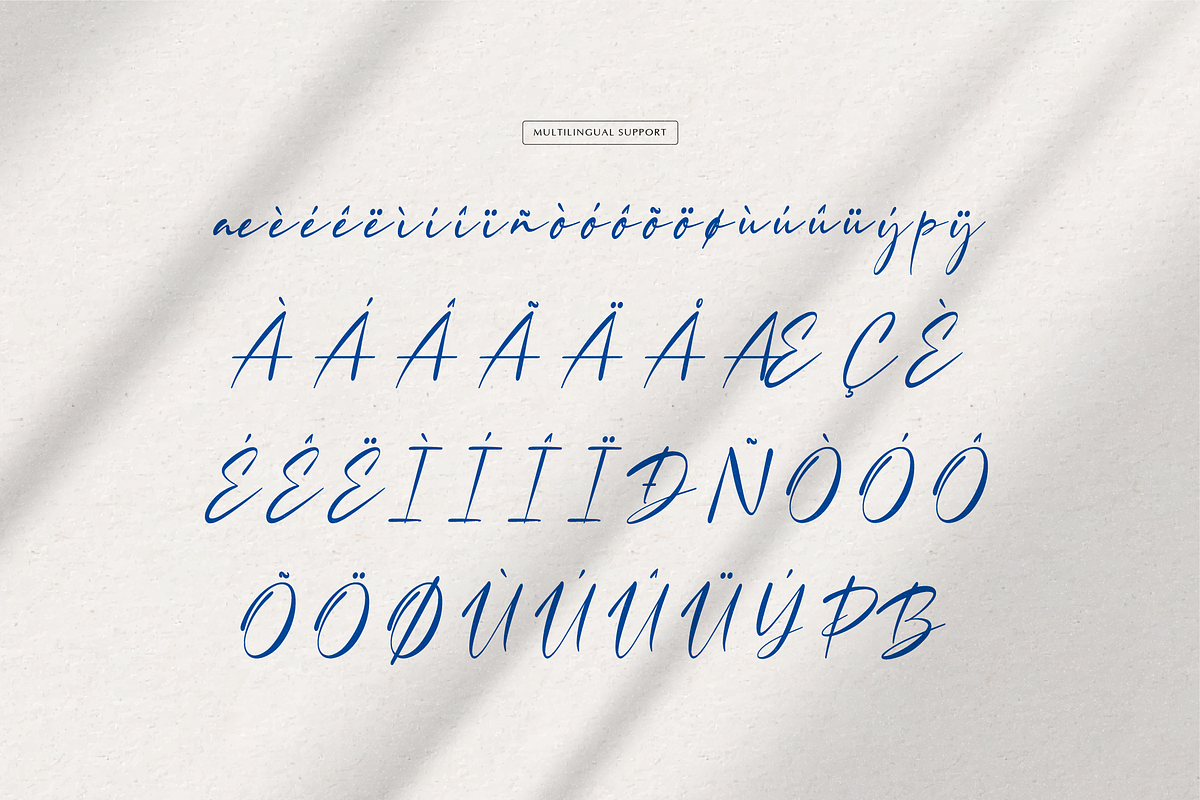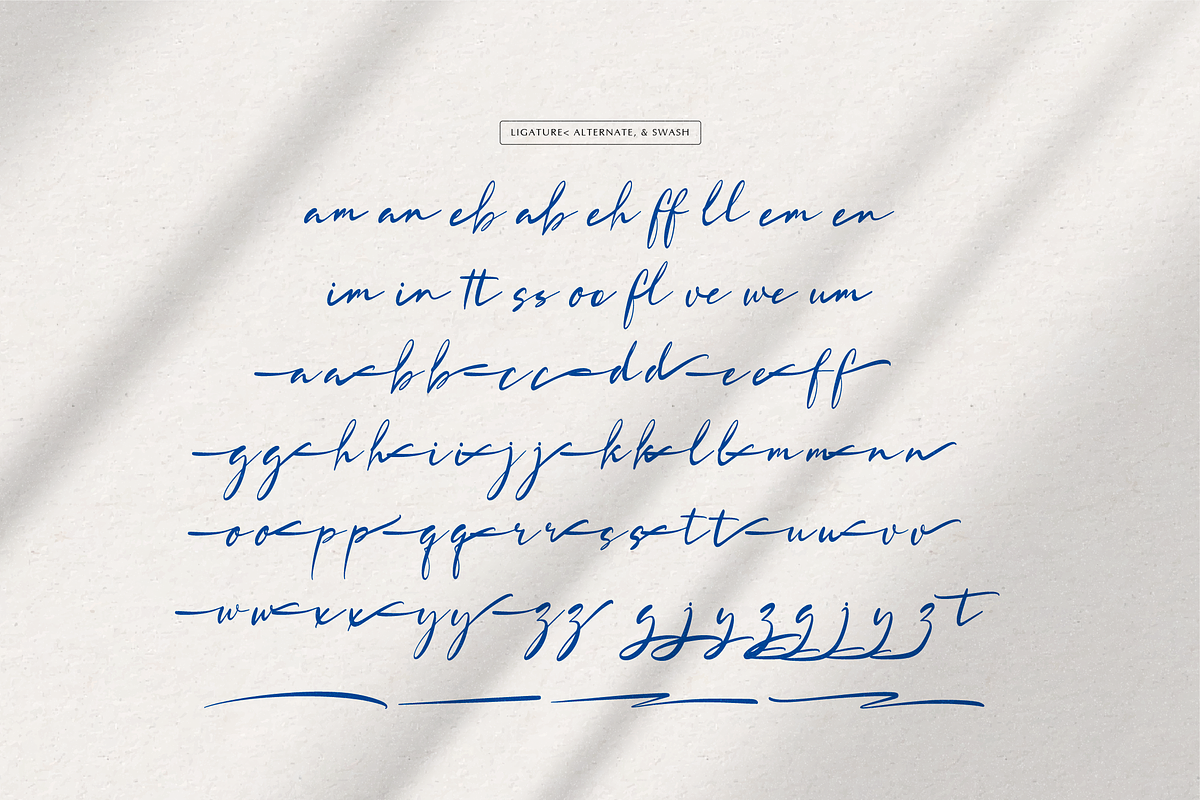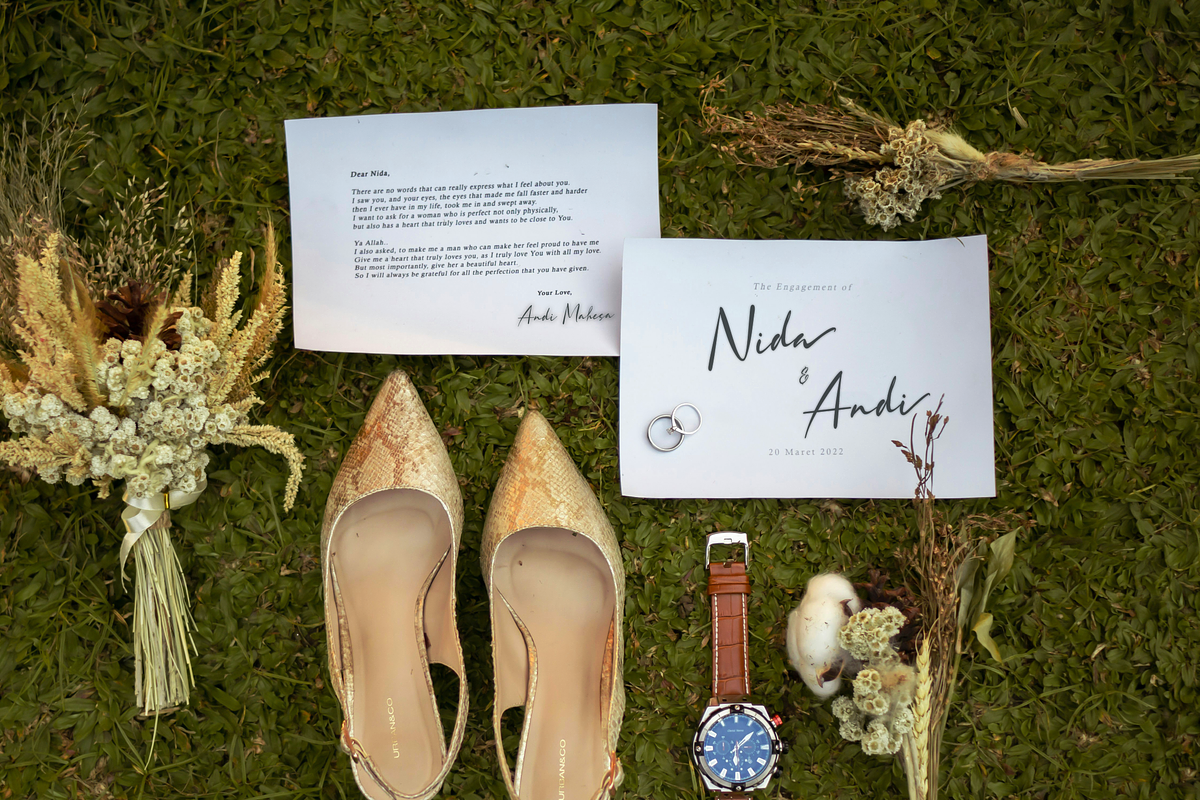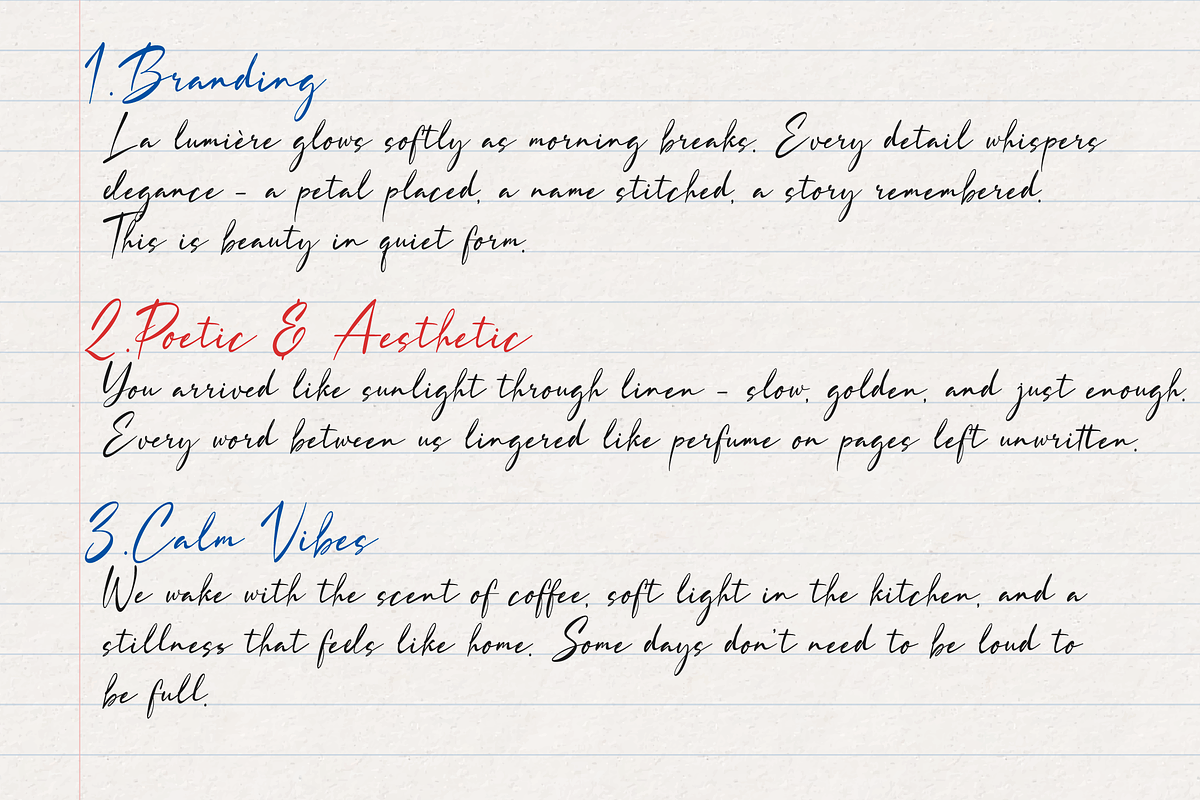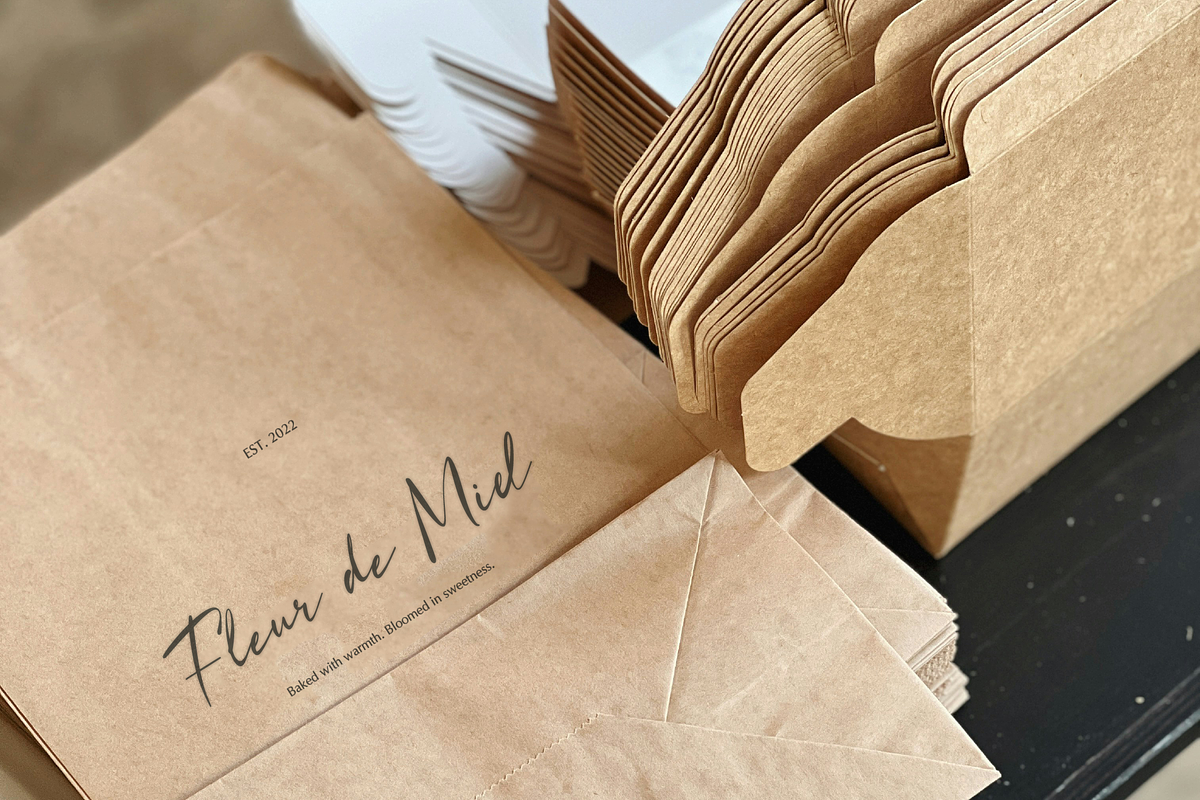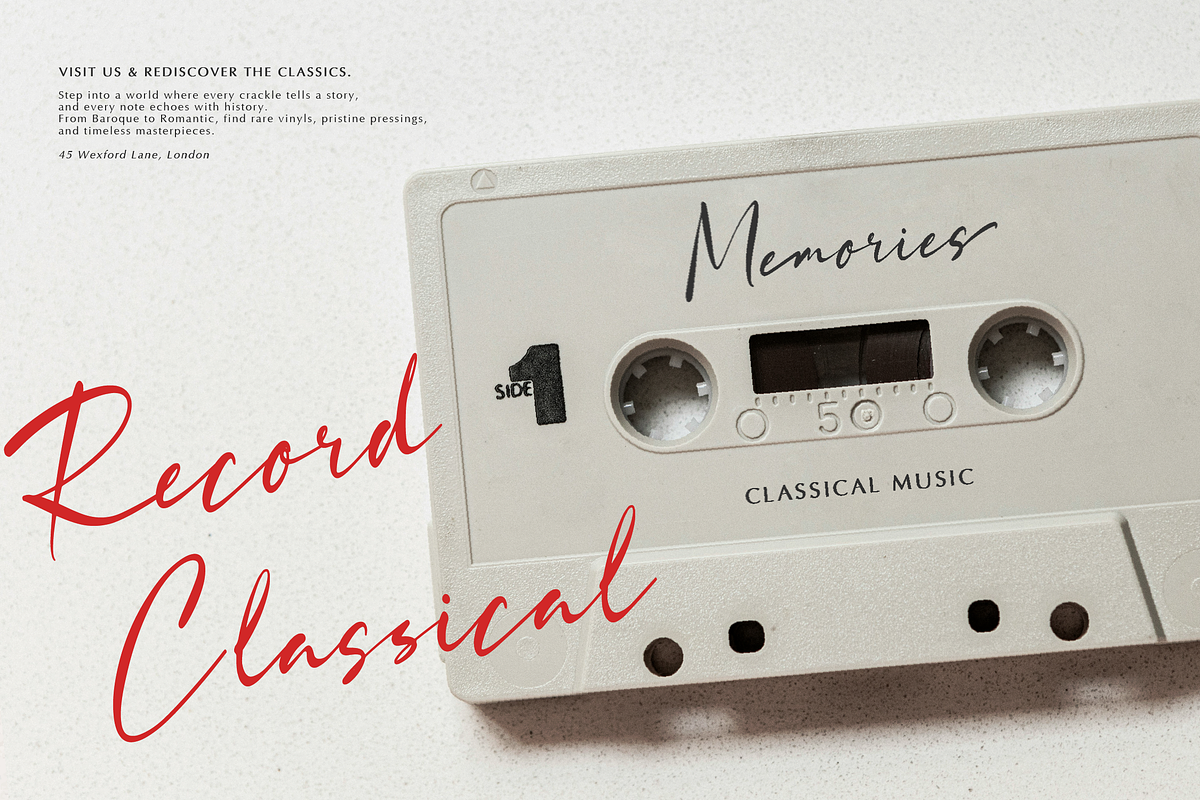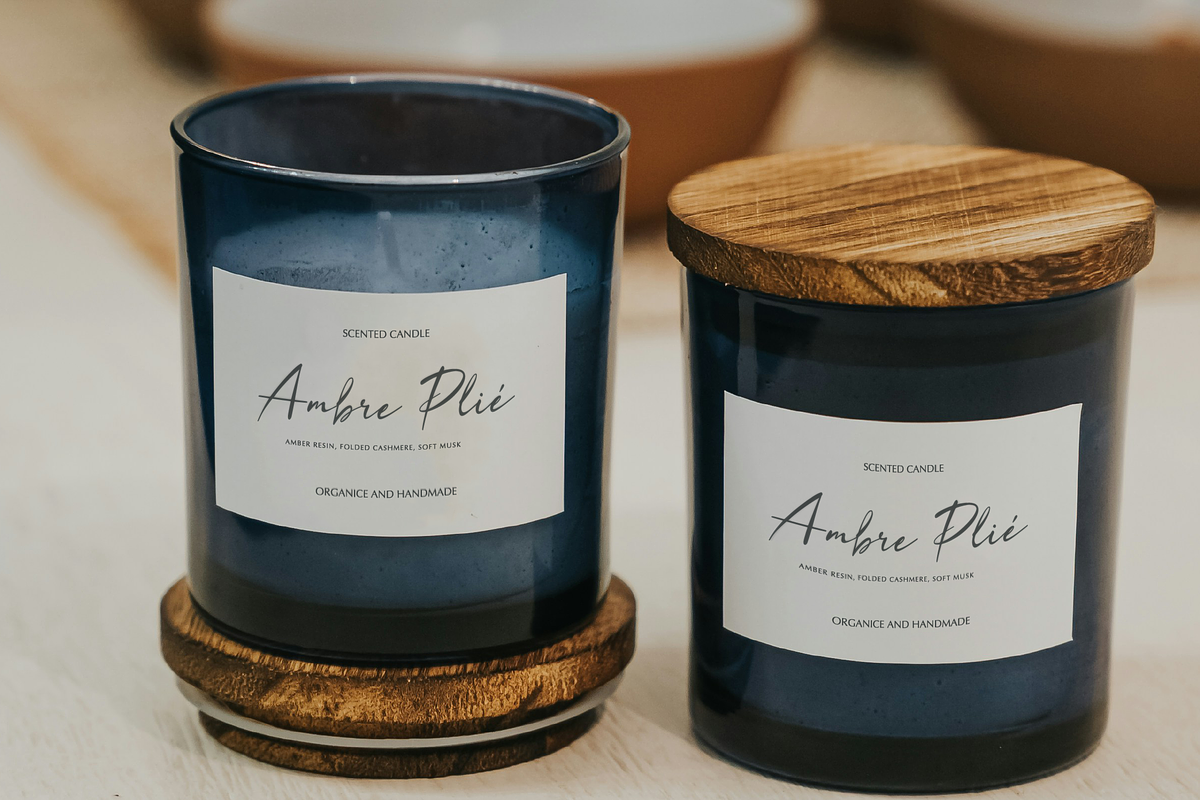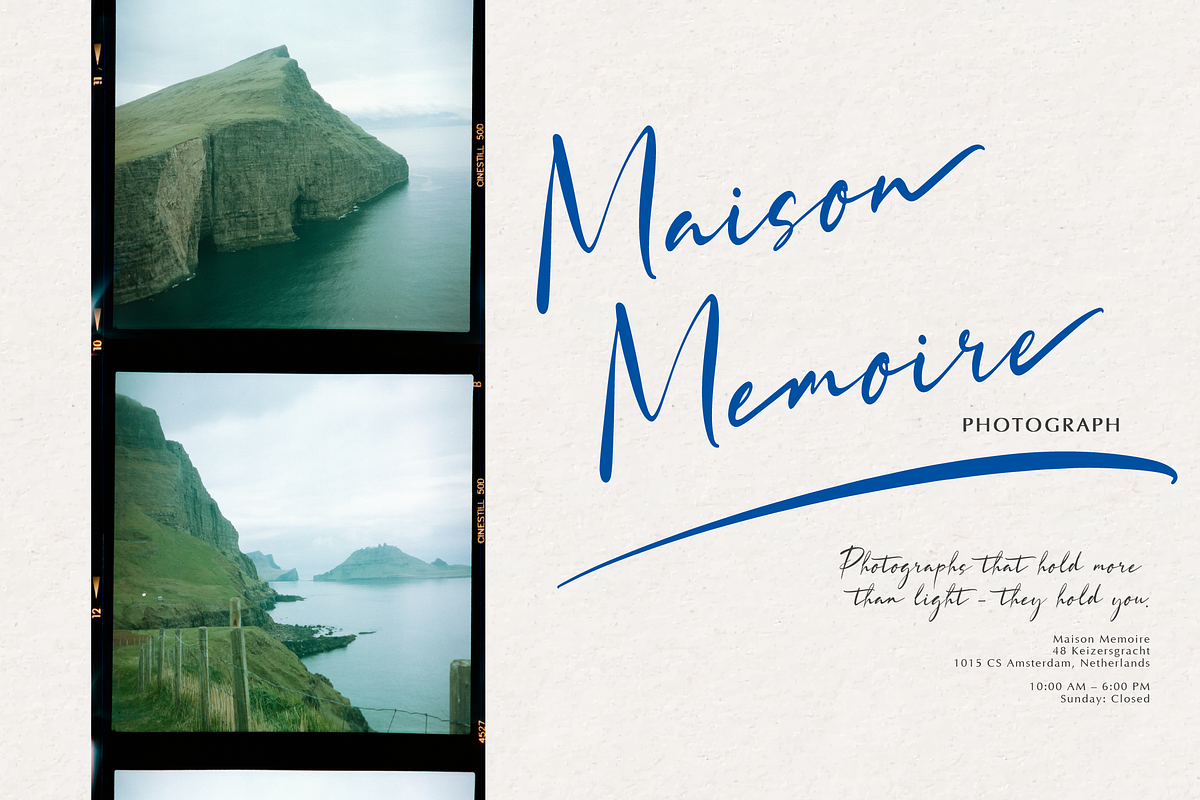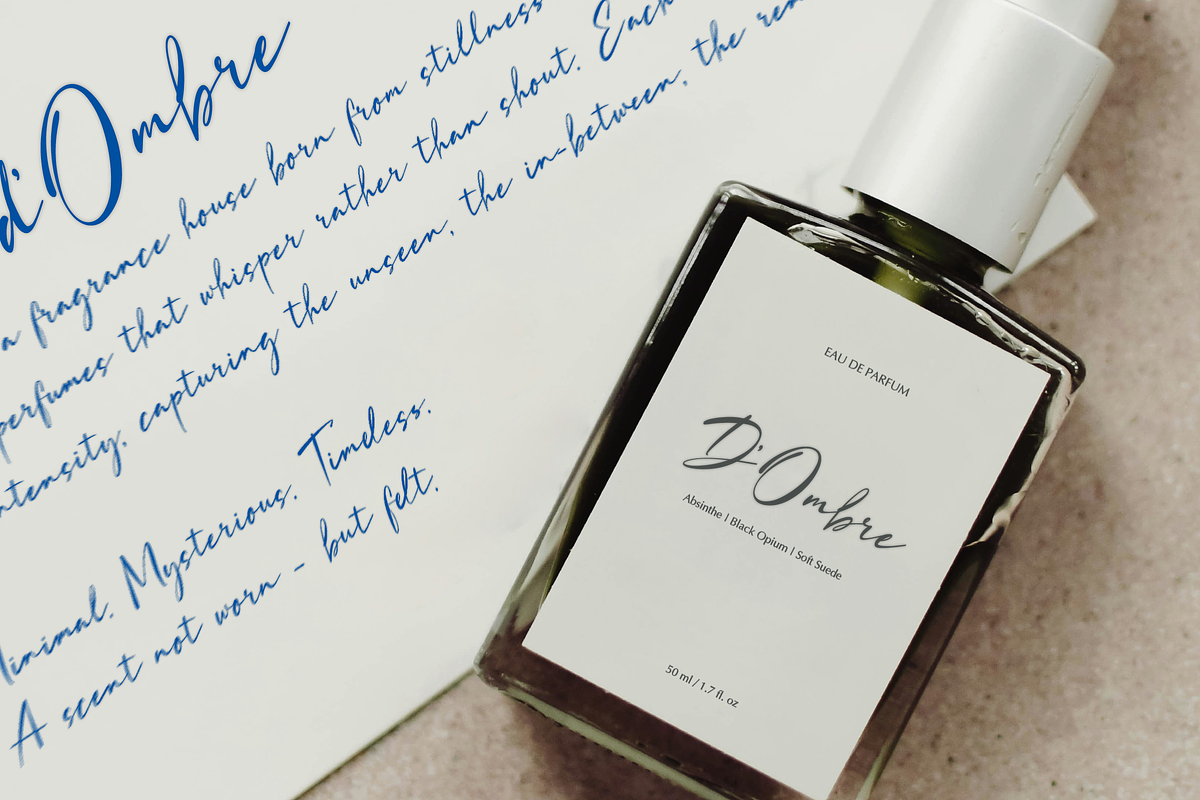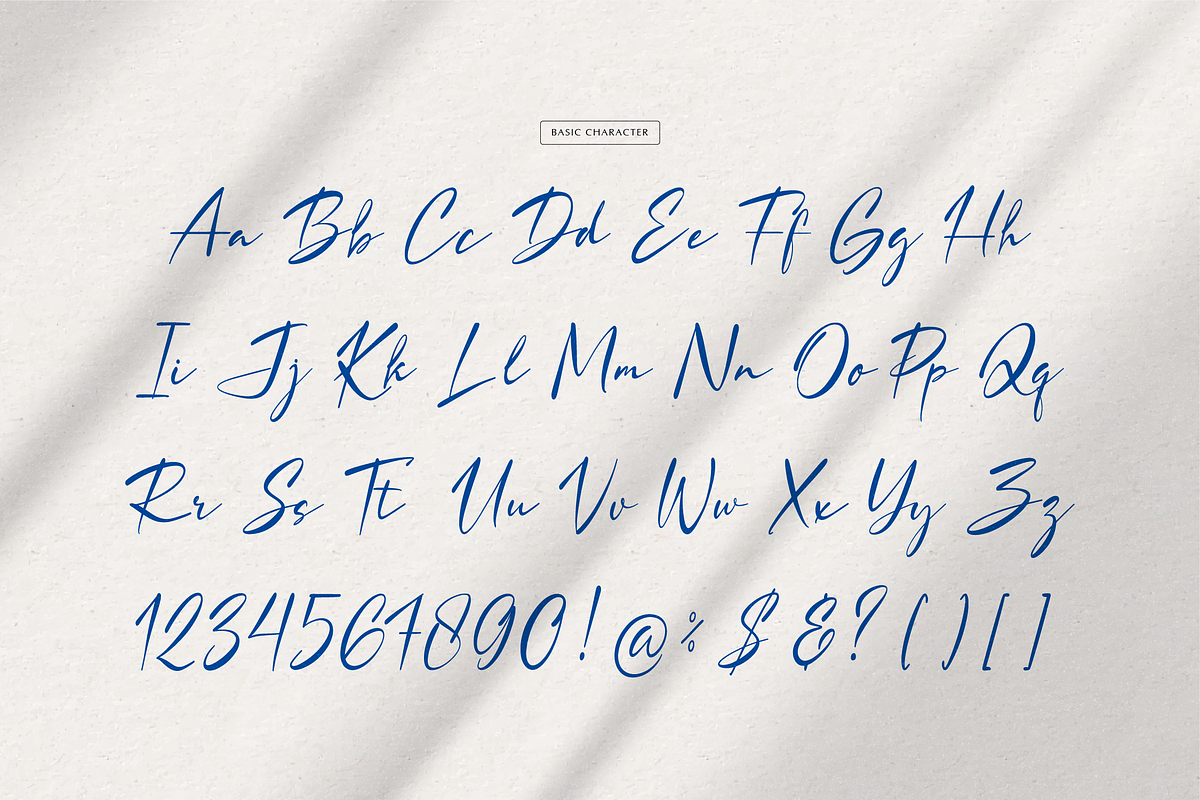
Lowreika Augusta | Classic Signature
Lowreika Augusta | Classic Signature Font, from Gracetypestudio, suitable for any projects such as: logos, branding projects, homeware designs, product packaging, mugs, quotes, posters, shopping bags, t-shirts, book covers, name card, invitation cards, greeting cards, label, photography, watermark, special events, and all your other lovely projects that need a Classic Signature Font taste.